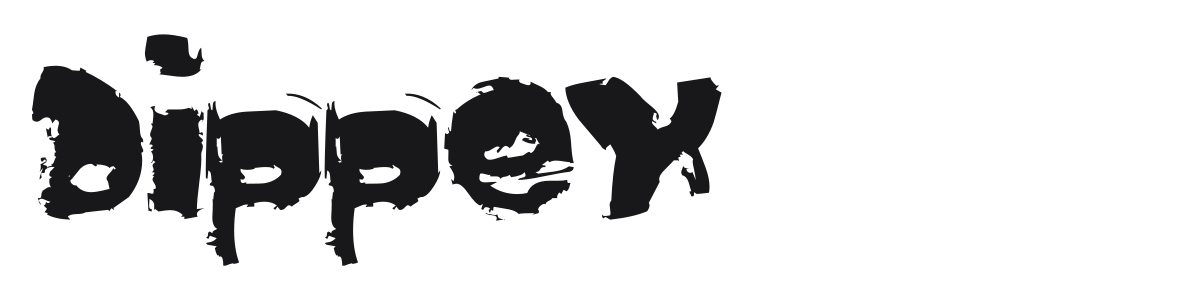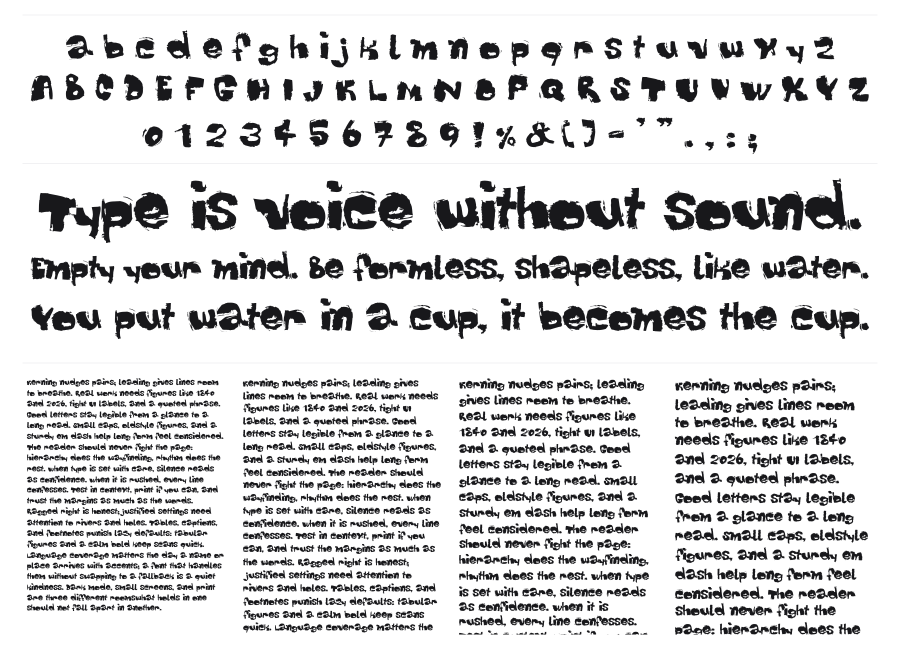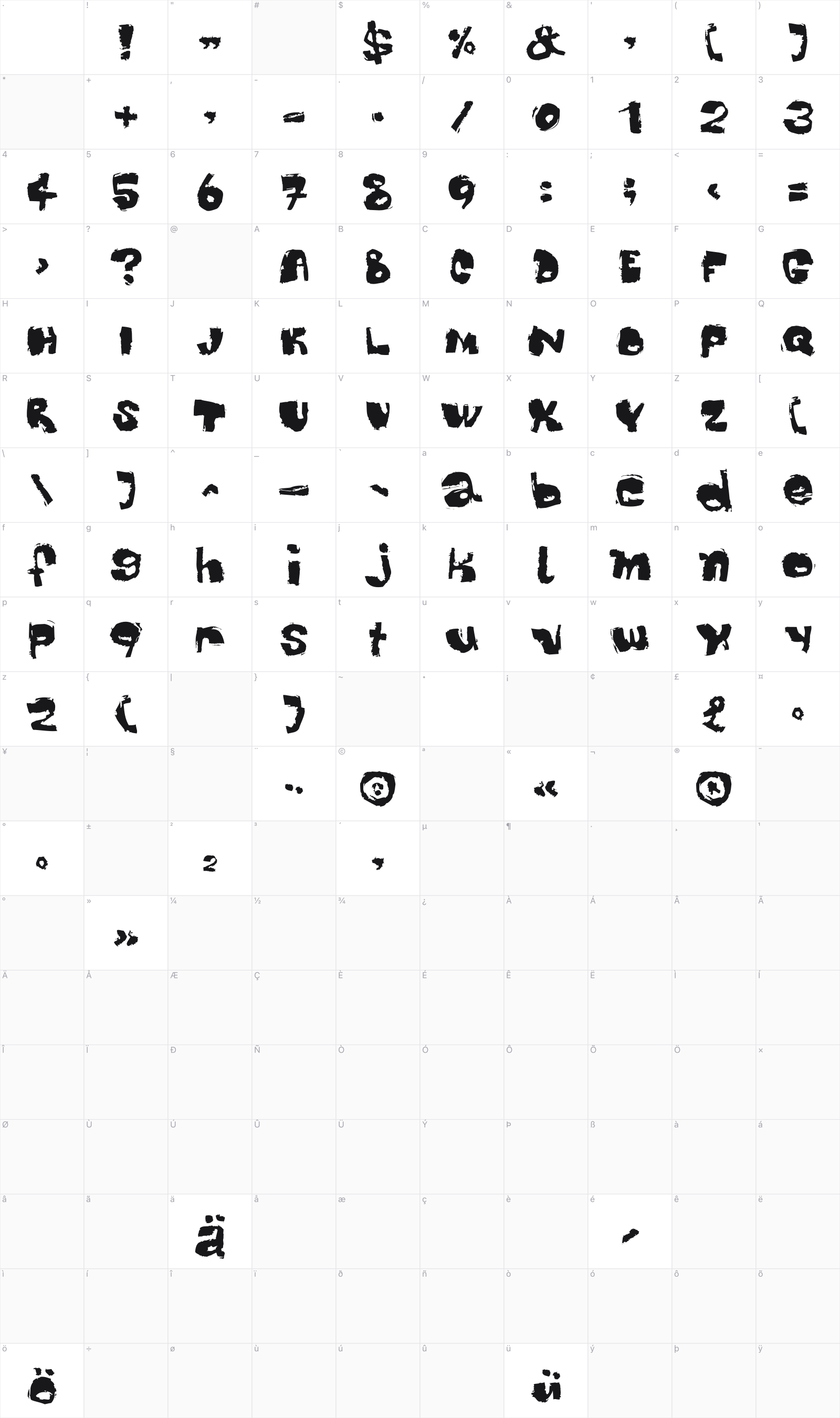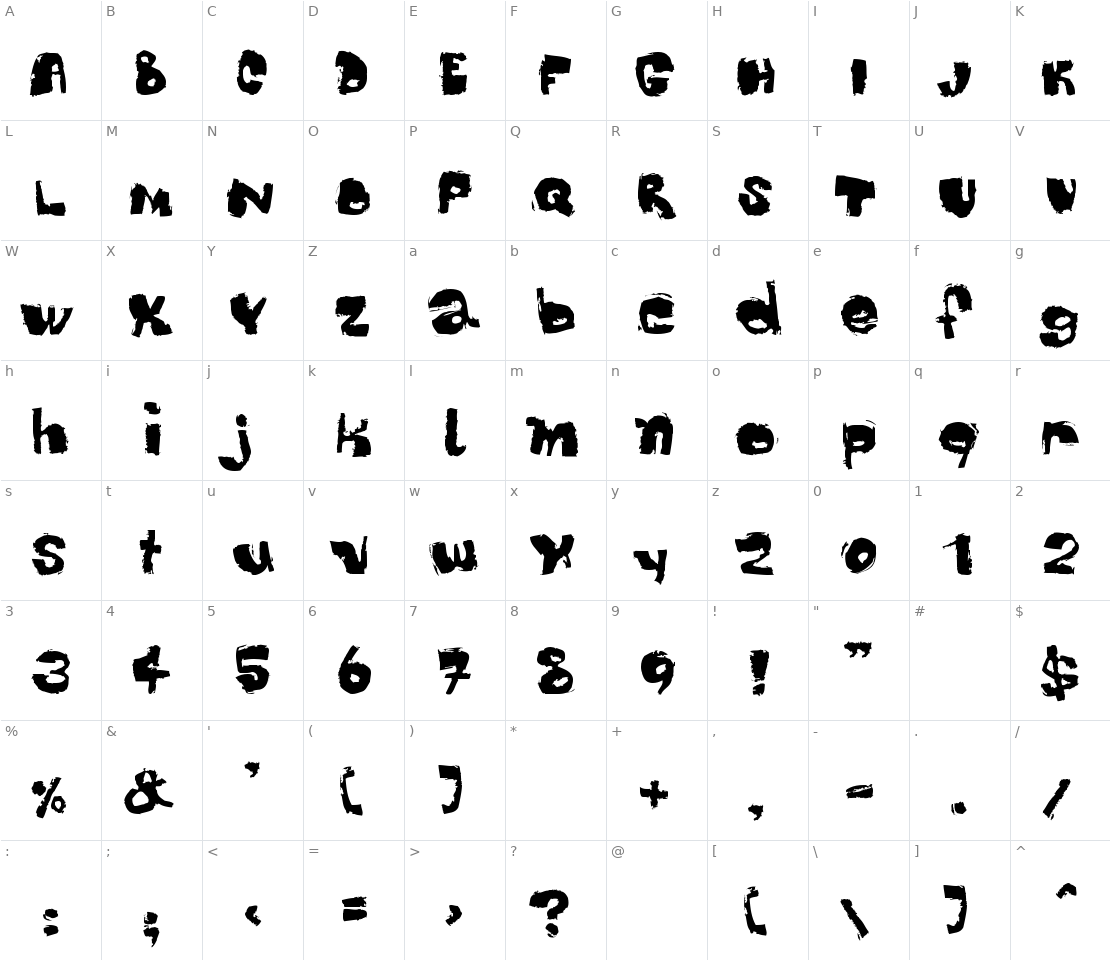
Dippex
Dippex is a heavy grunge display font from Swiss design collective büro destruct, built from rough, ink-eaten strokes that look like they were stamped, smeared, and left to decay. Every character carries an organic irregularity — blobs, broken edges, uneven weight — that gives it genuine textural intensity rather than simulated distress. It reads loud and raw at headline sizes, perfect for contexts that need an authentic underground edge.